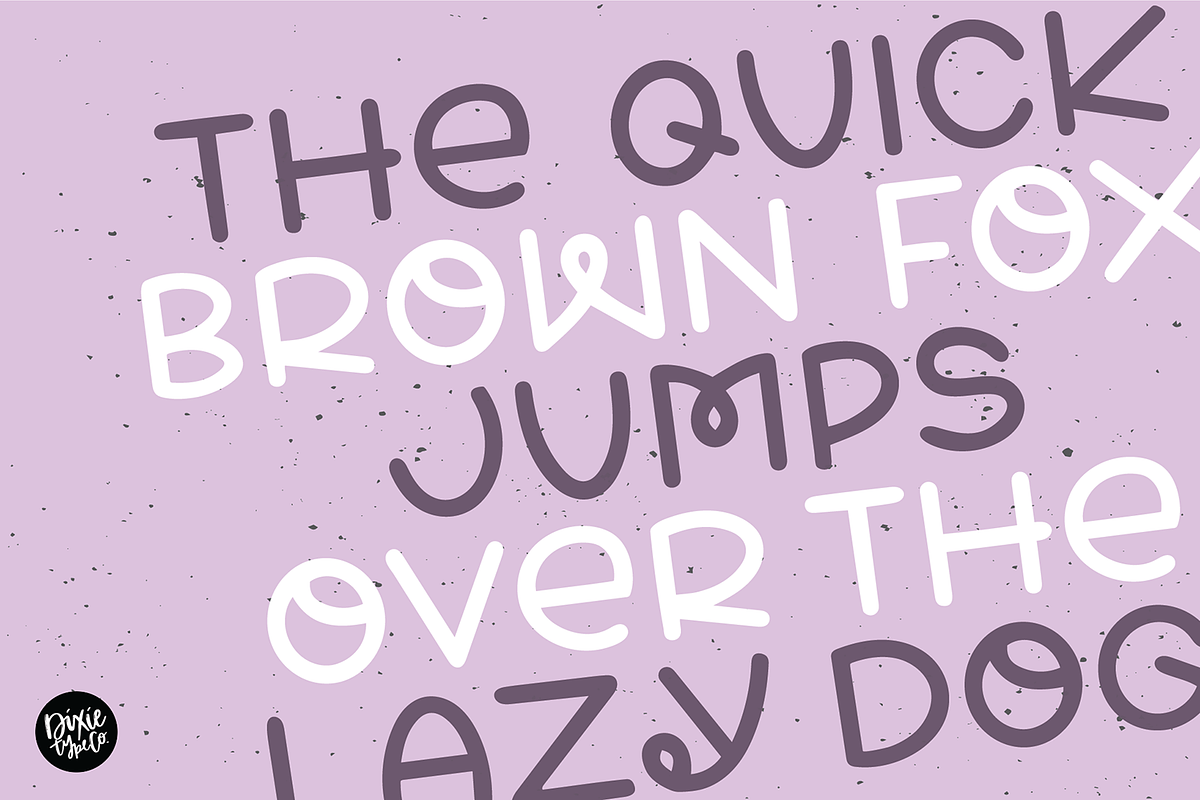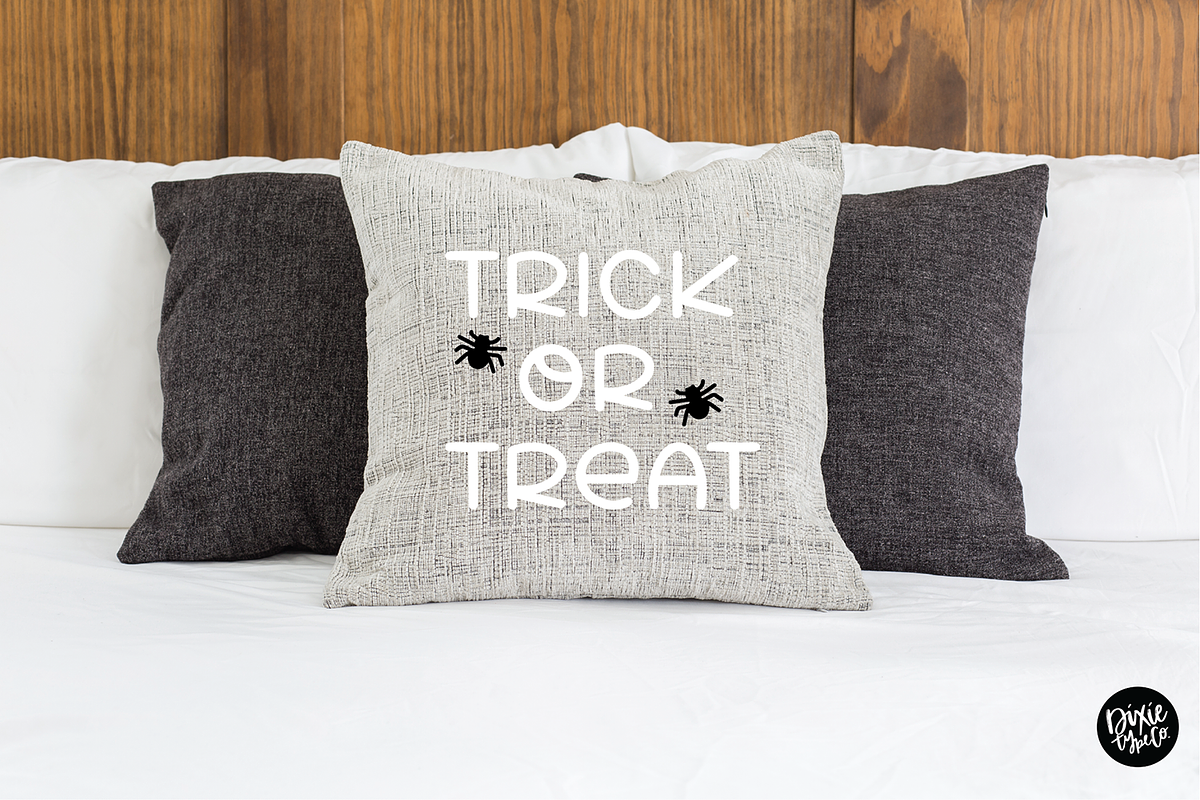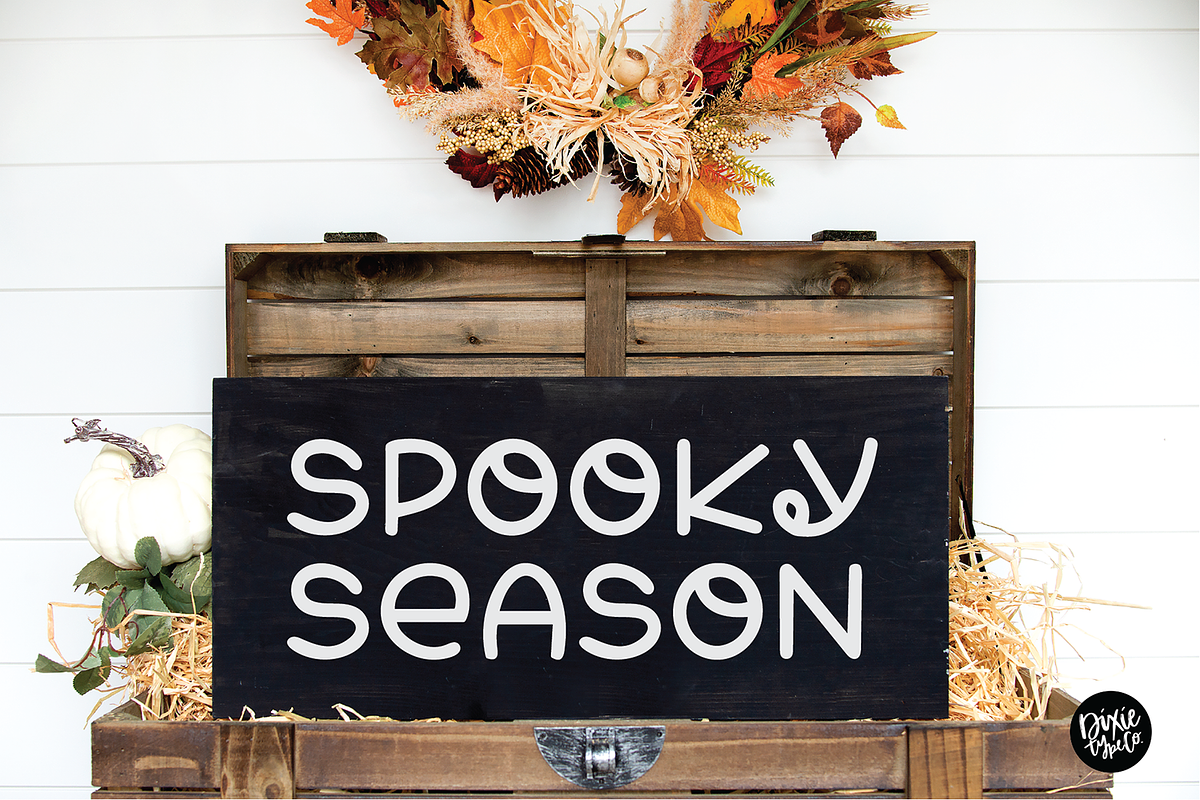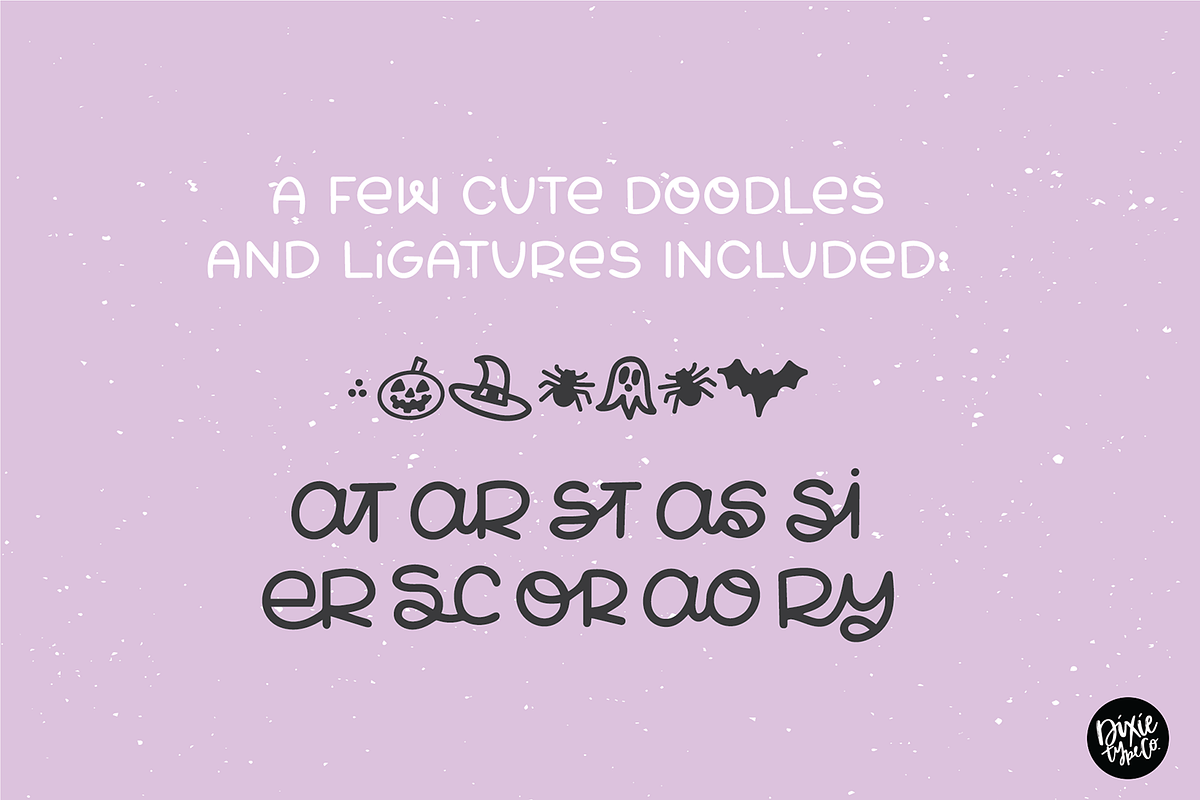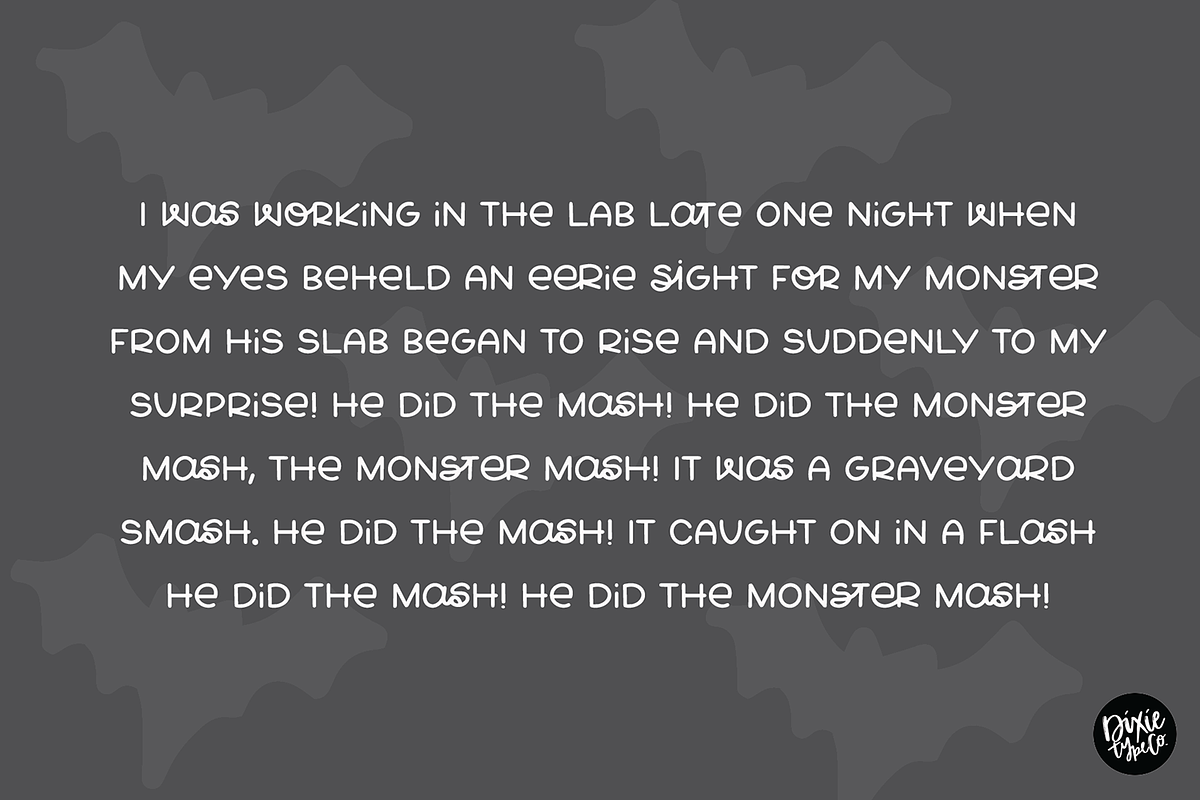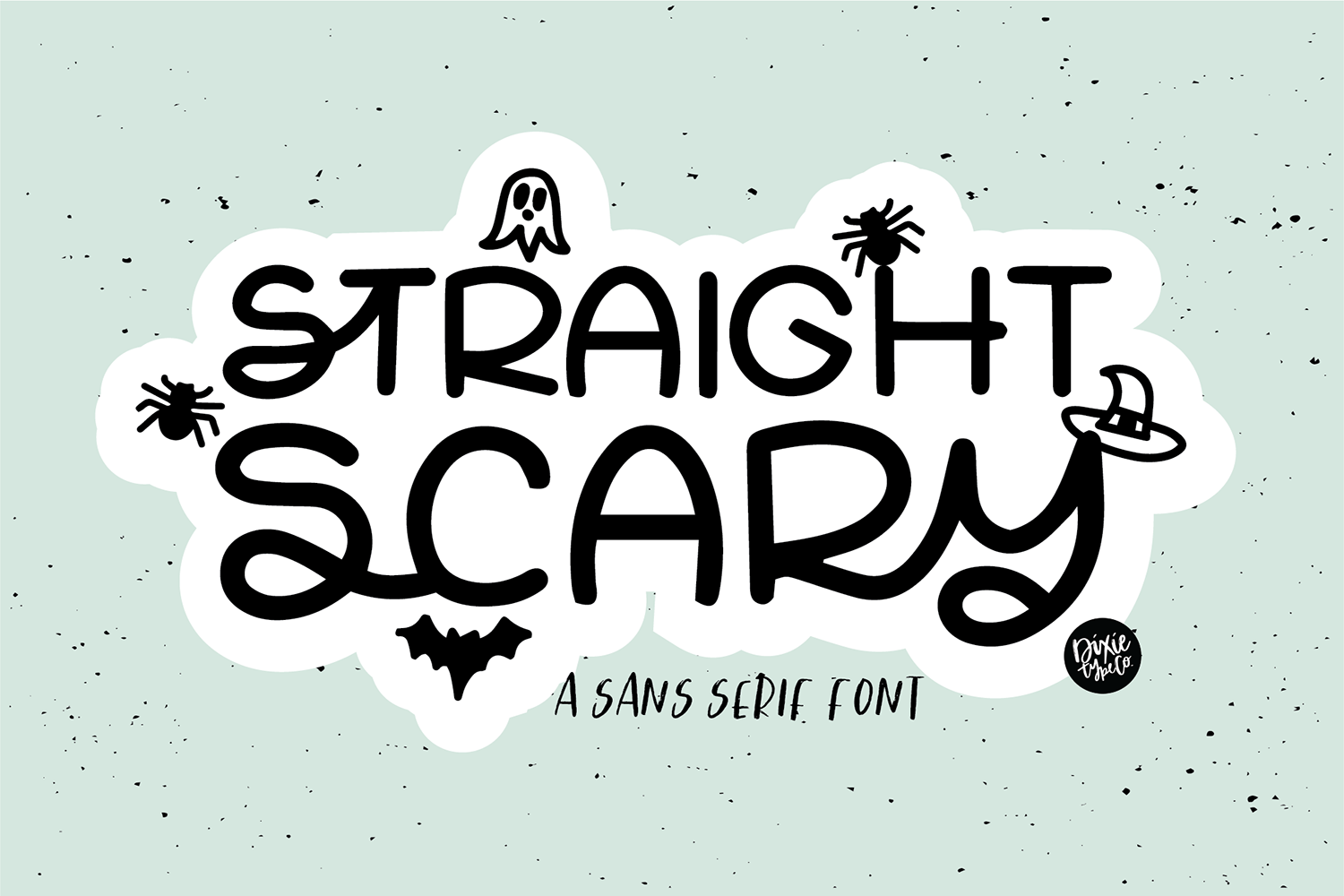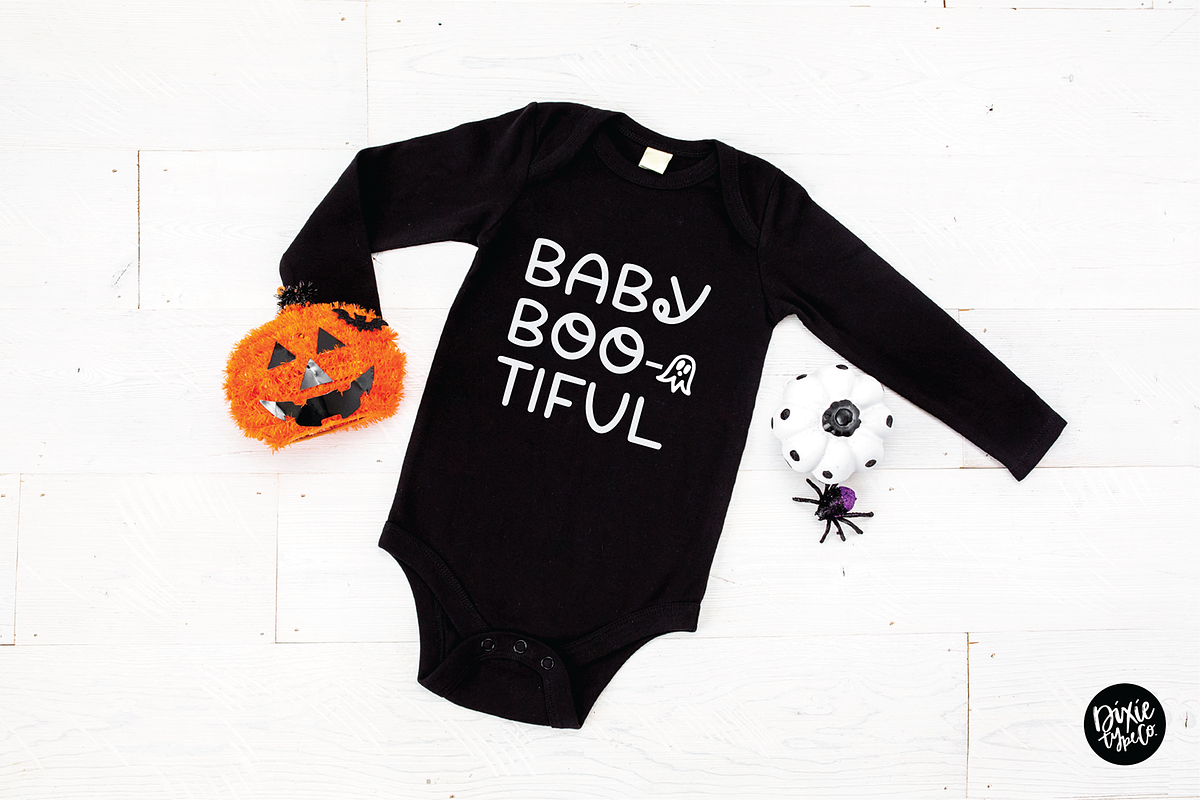
STRAIGHT SCARY Halloween Font
"Straight Scary"
A Sans Serif Halloween Font with doodles
{ A typographic font hand lettered with love by Dixie Type Co. }
This is an installable font that will work great with your Halloween party invitations, web graphics, and other halloween decor.
This font comes with upper and lowercase letters, numbers, basic punctuation, and 10 ligatures. Also includes 7 Halloween doodles.